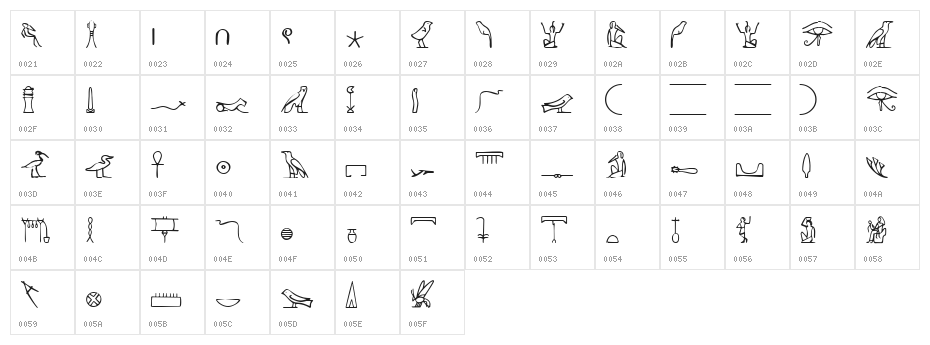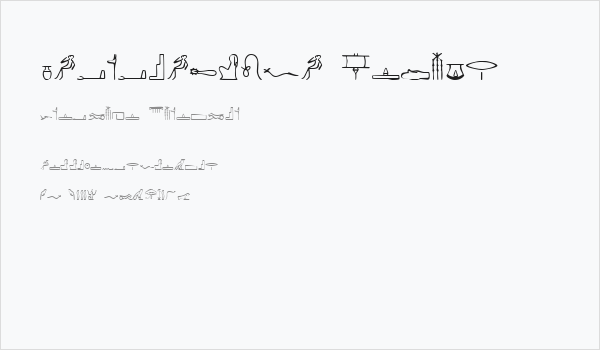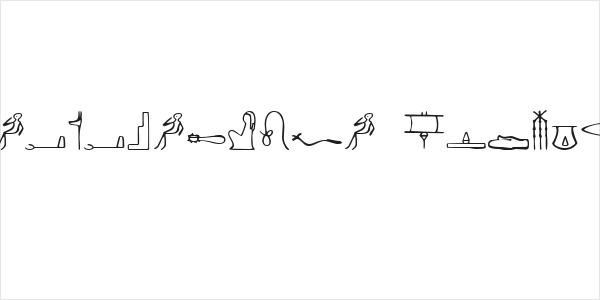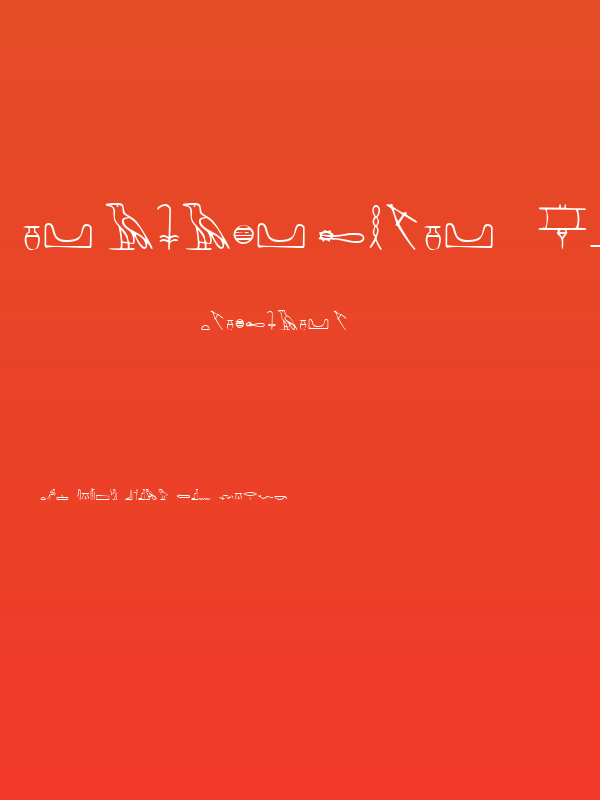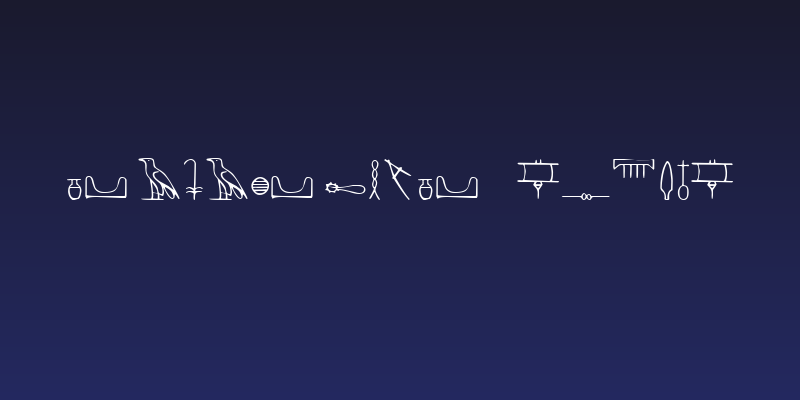
PharaohGlyph Medium Font
PharaohGlyph Medium Description
This font is a collection of intricate and detailed hieroglyphic symbols, reminiscent of ancient Egyptian writing. Each character is a unique pictogram, representing various elements such as animals, tools, and abstract shapes. The design is highly decorative, capturing the essence of historical scripts with precision and artistry. The lines are clean and well-defined, offering a clear representation of each symbol. This font is perfect for projects that require an authentic ancient aesthetic, providing a visual connection to the past. Its complexity and historical significance make it a standout choice for themed designs.
| Use Case | Logos, Decorative elements, Themed designs |
| Proposed Projects | Ideal for historical documentaries, educational materials, themed event invitations, and museum exhibits. |